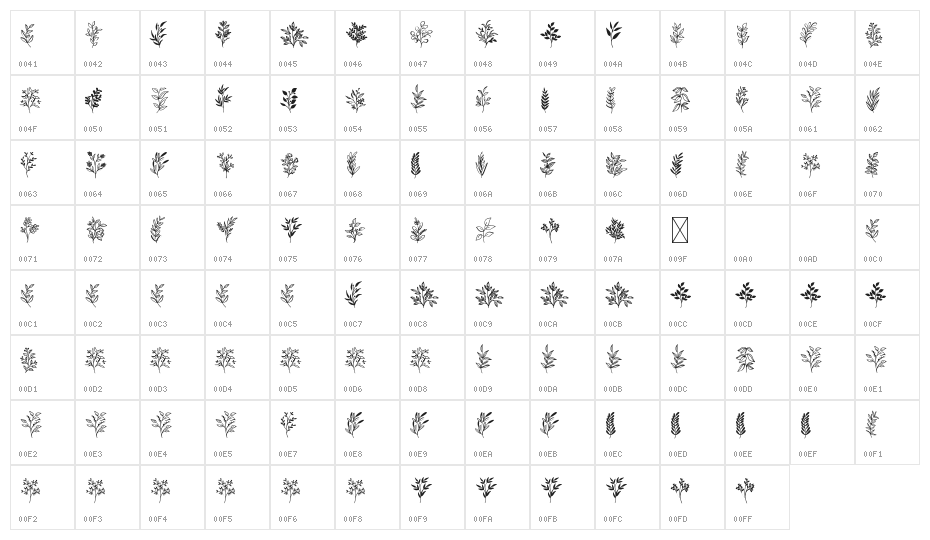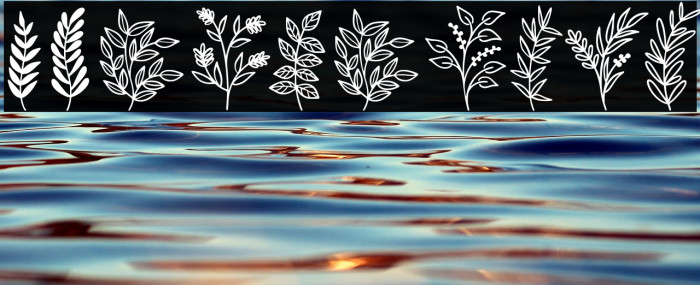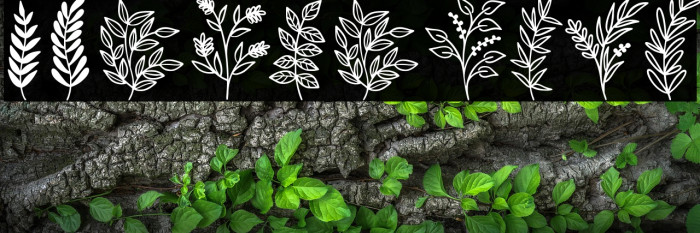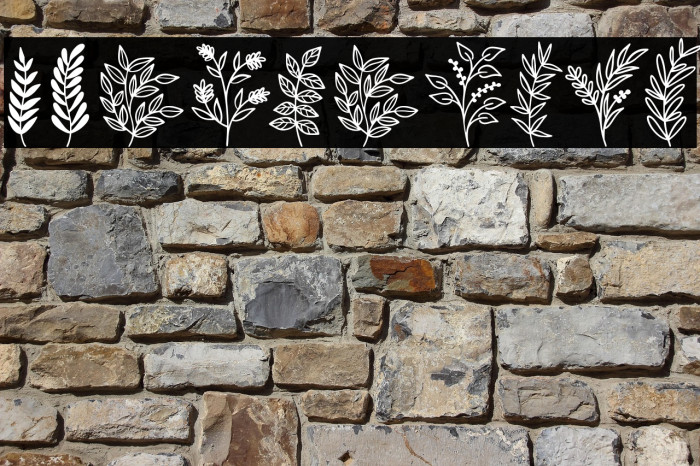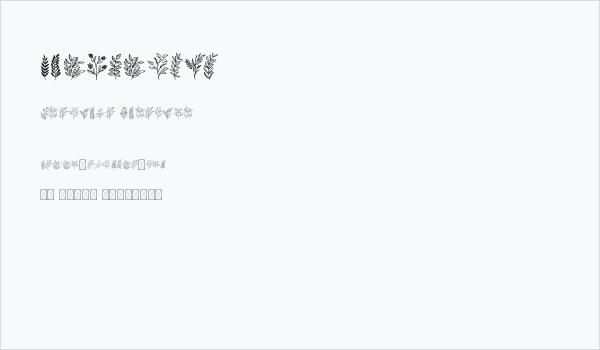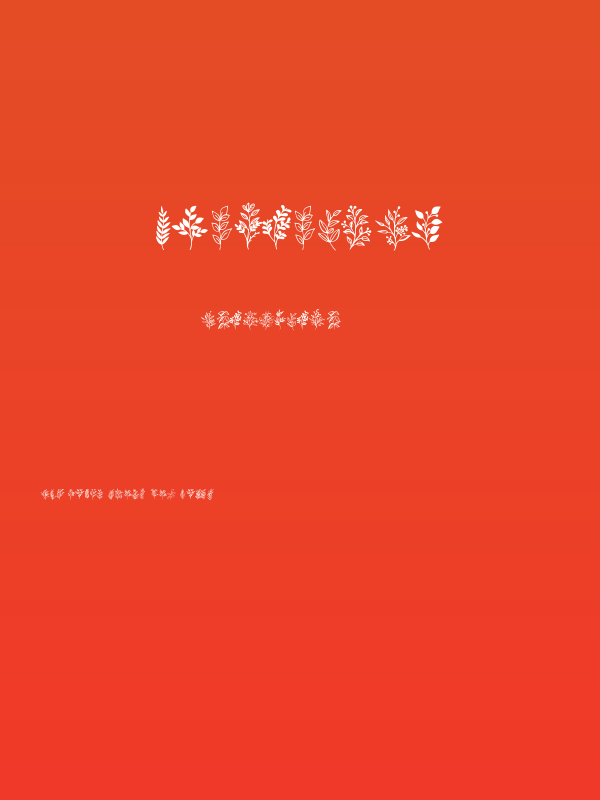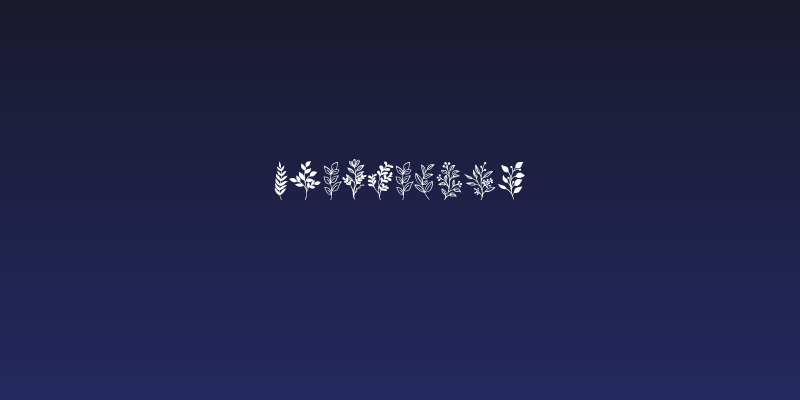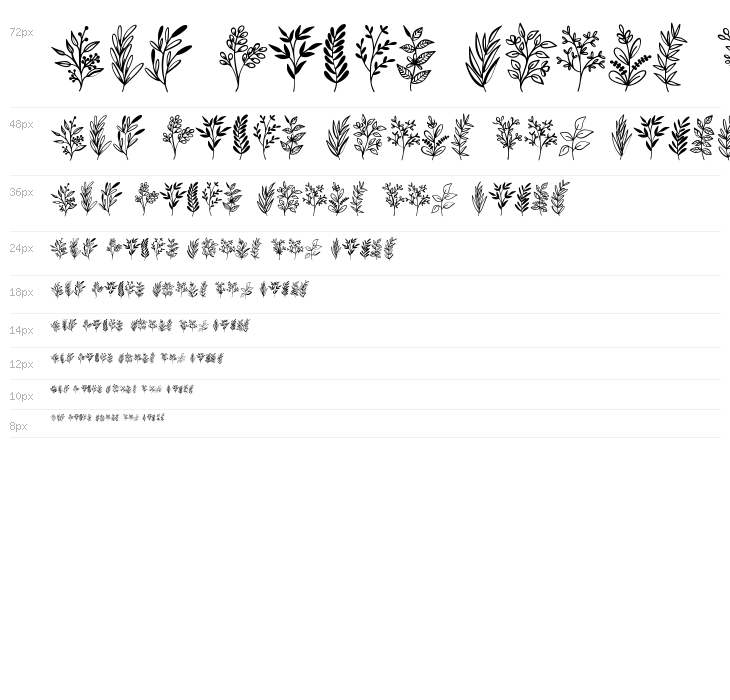
Wildplants Font
Wildplants Description
A decorative collection of hand-drawn wild plant illustrations featuring various leaf and branch shapes in black and white, designed as ornamental motifs rather than traditional alphanumeric characters.
| Overall Style | Natural, Organic, Handcrafted |
| Use Case | Decorative elements, logos, invitations, packaging |
| Proposed Projects | Ideal for nature-themed designs, botanical prints, wedding invitations, eco-friendly branding, and decorative borders or accents. |